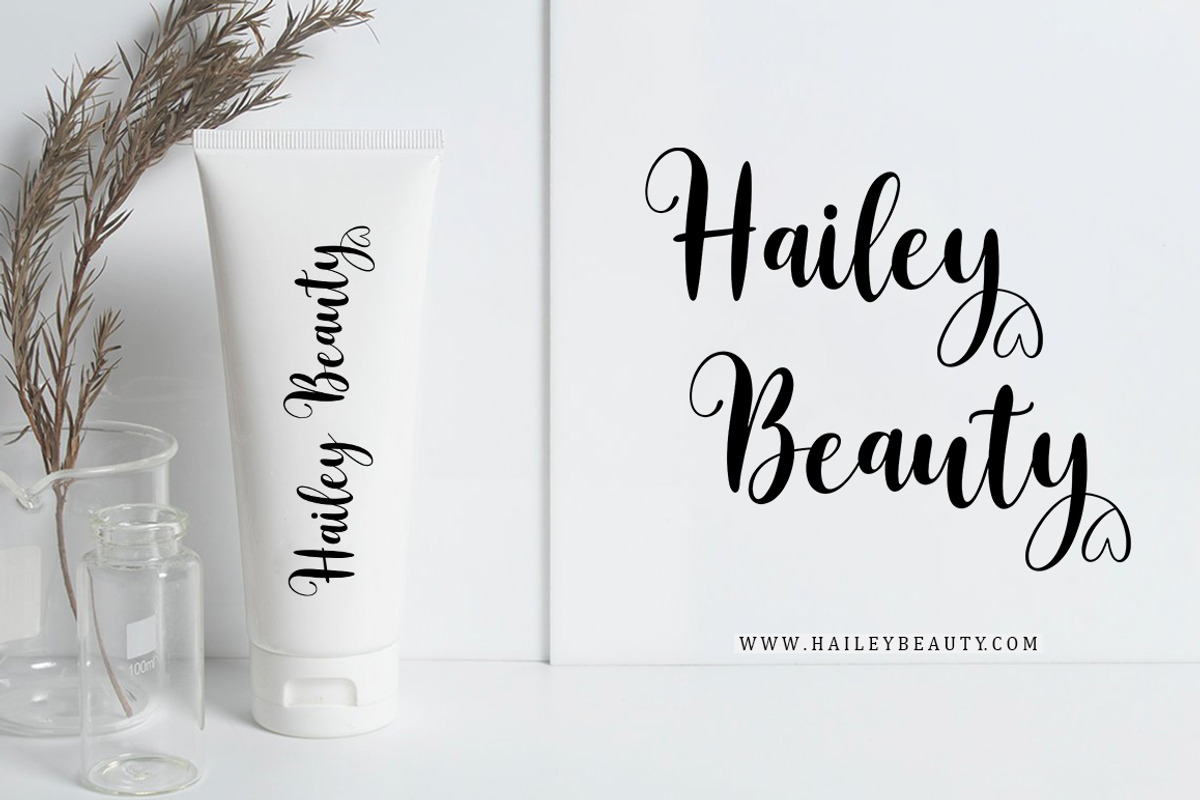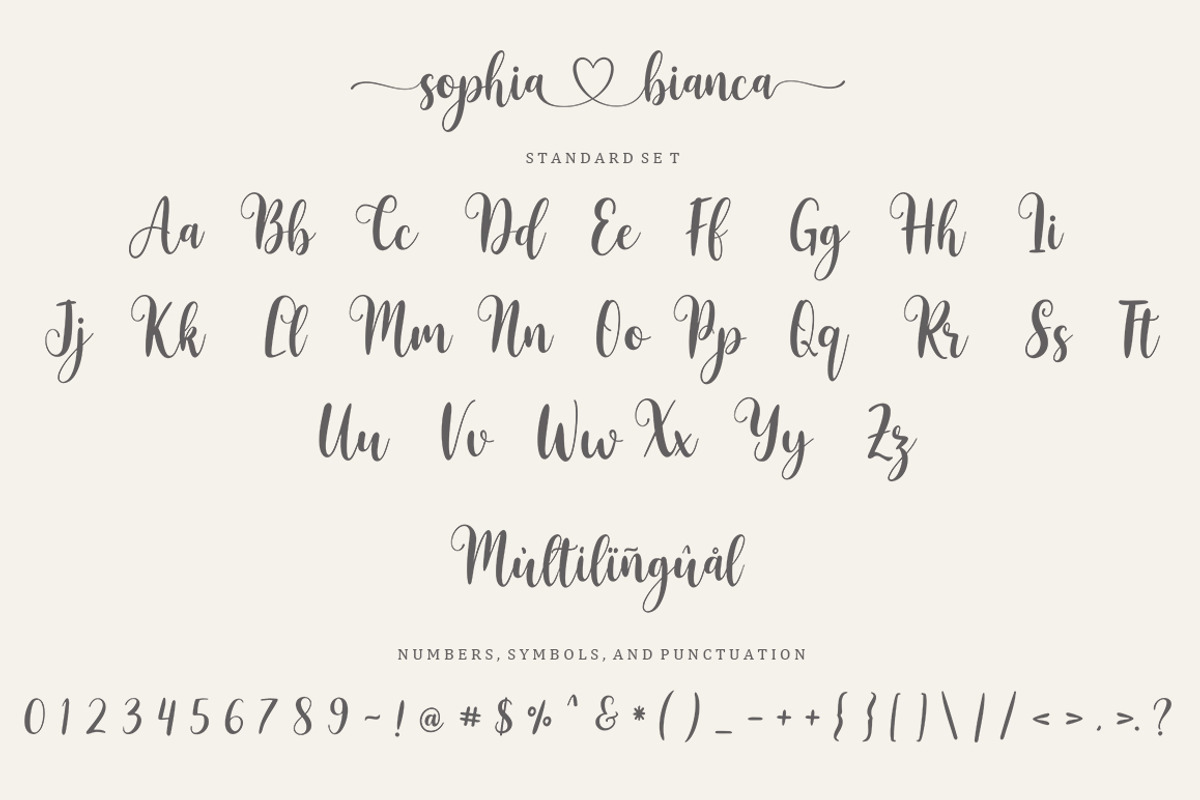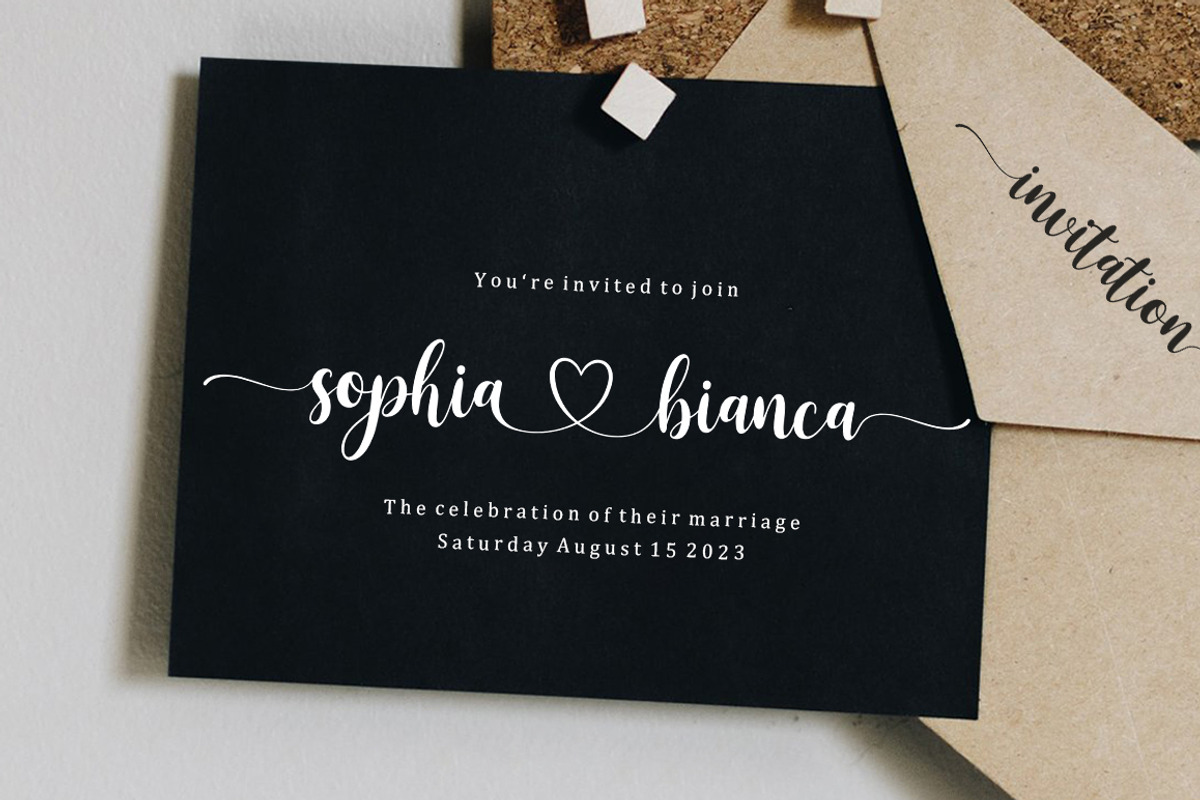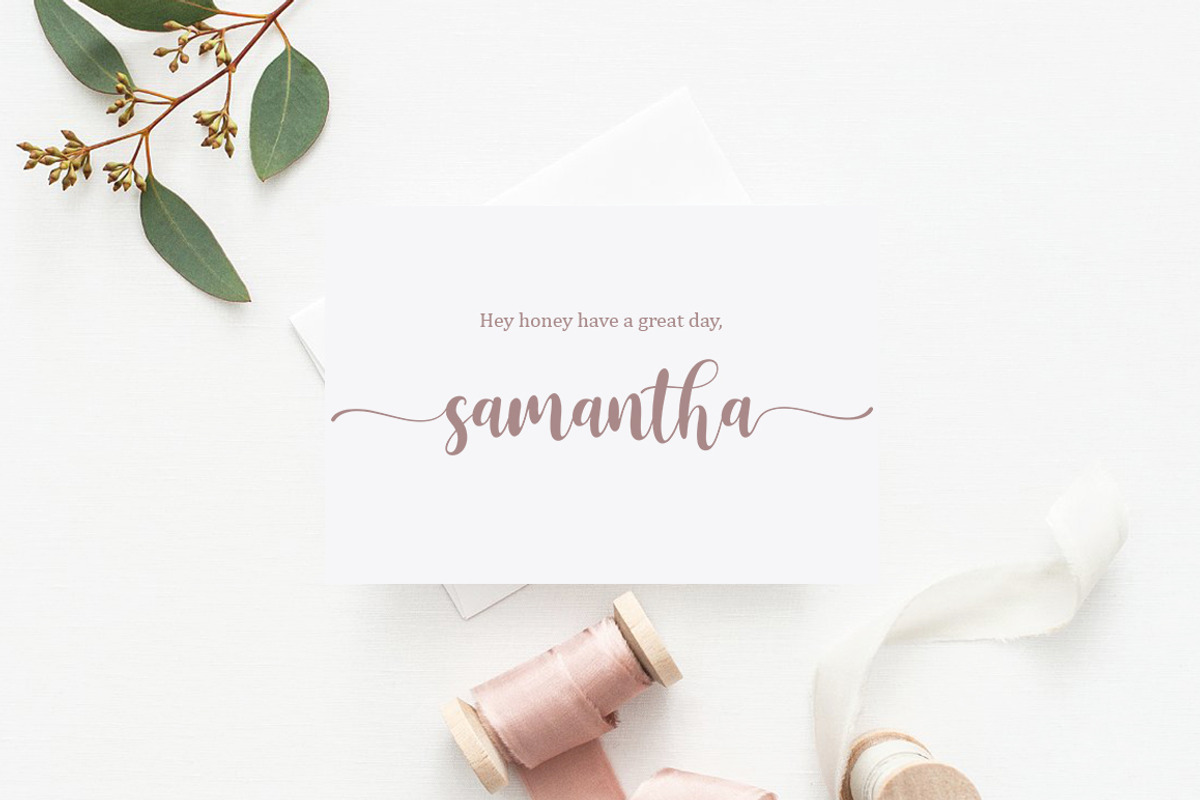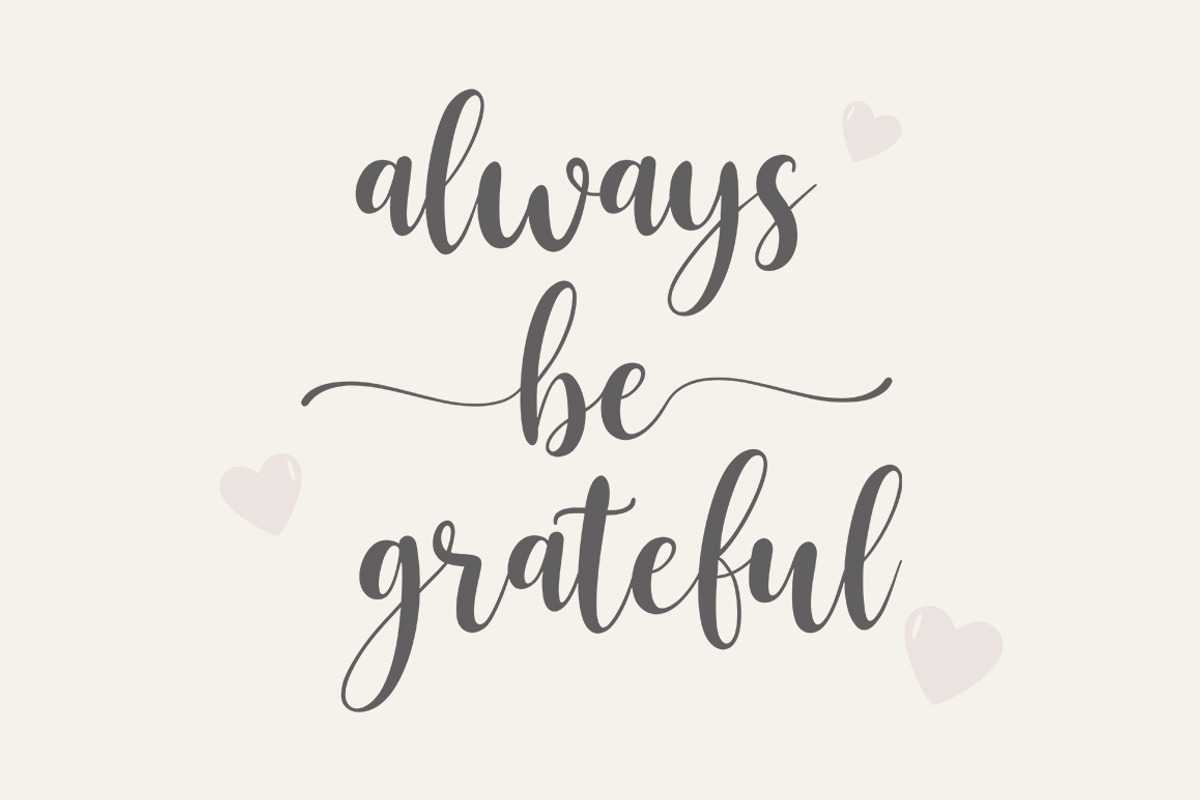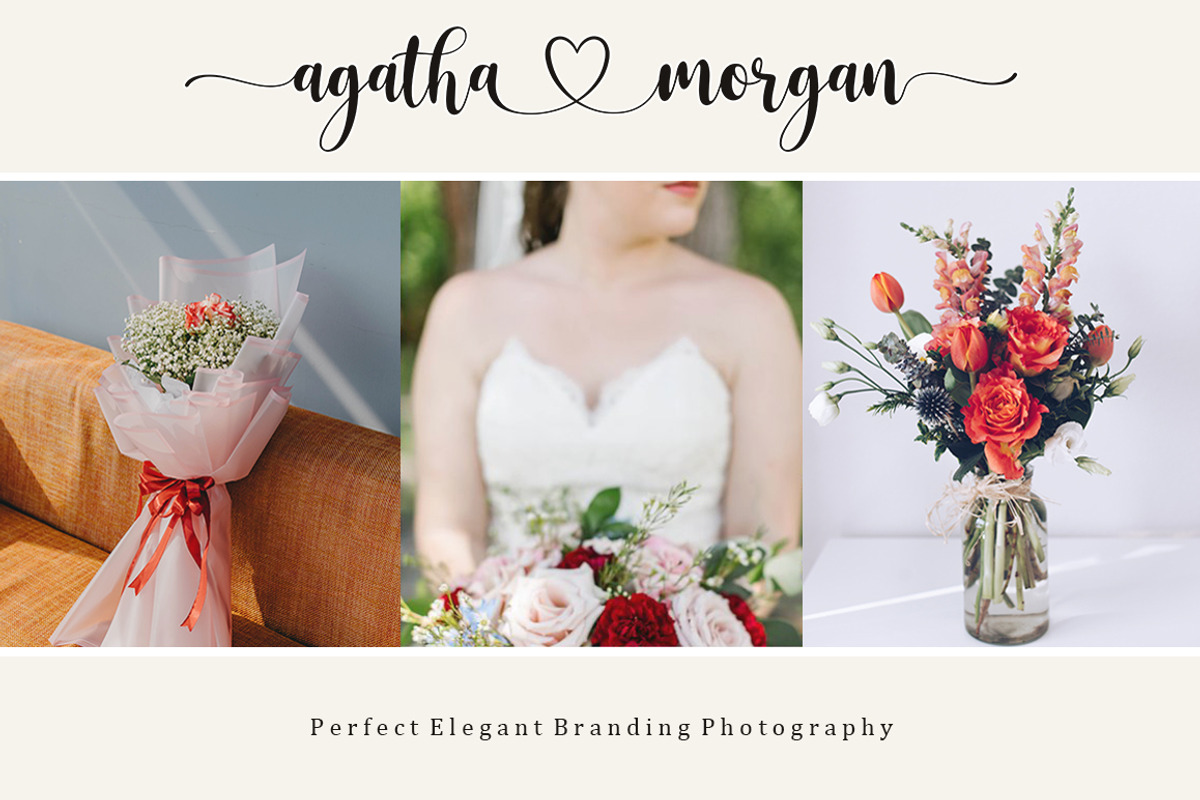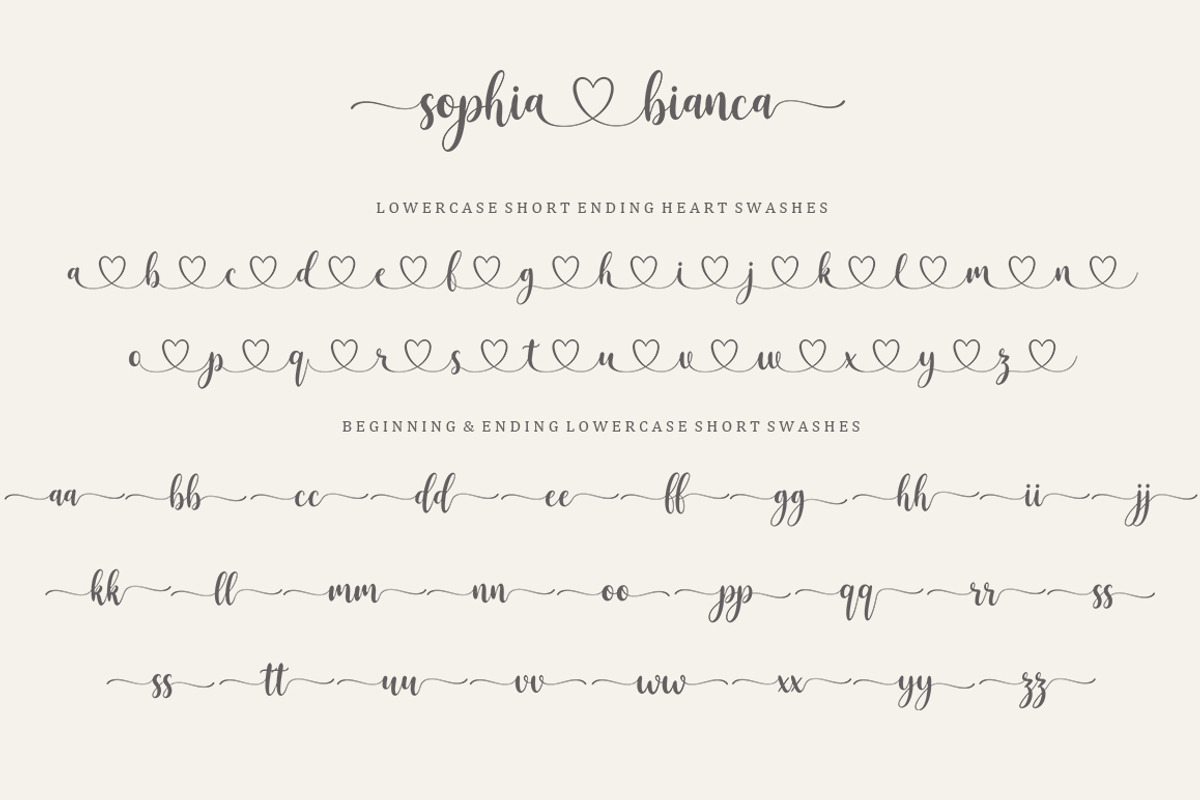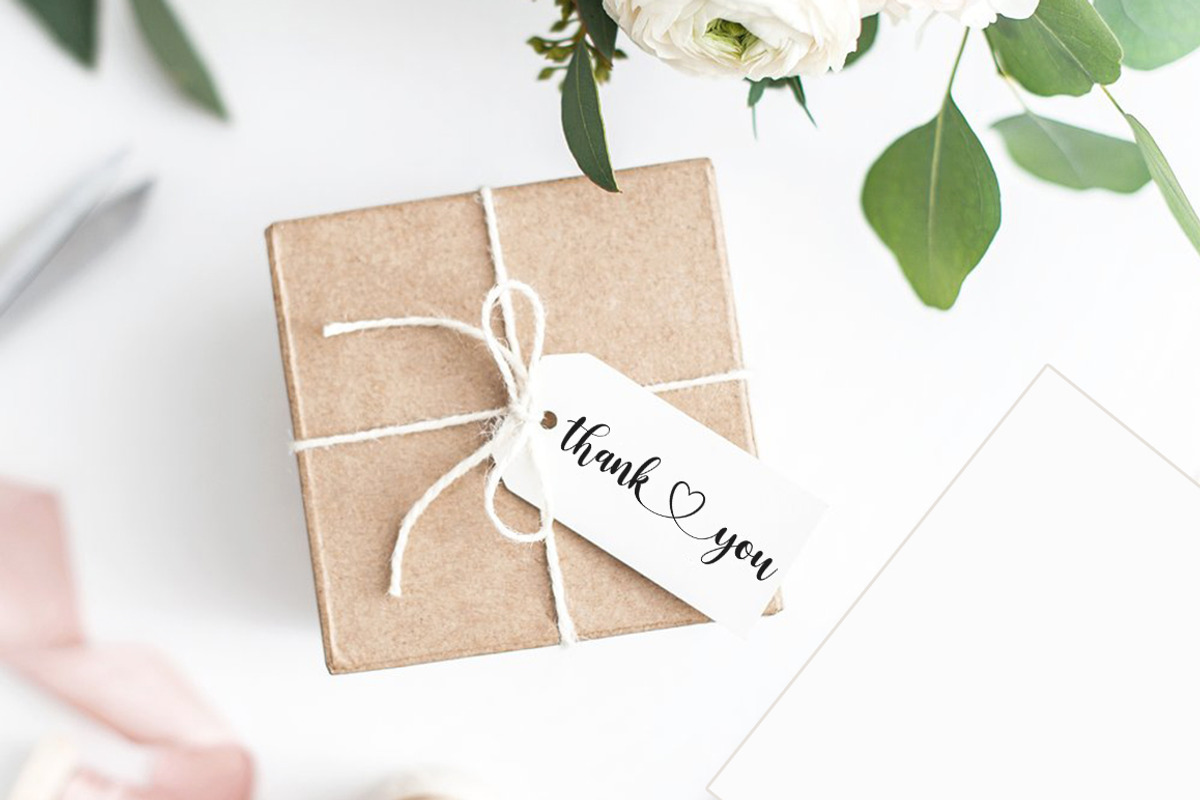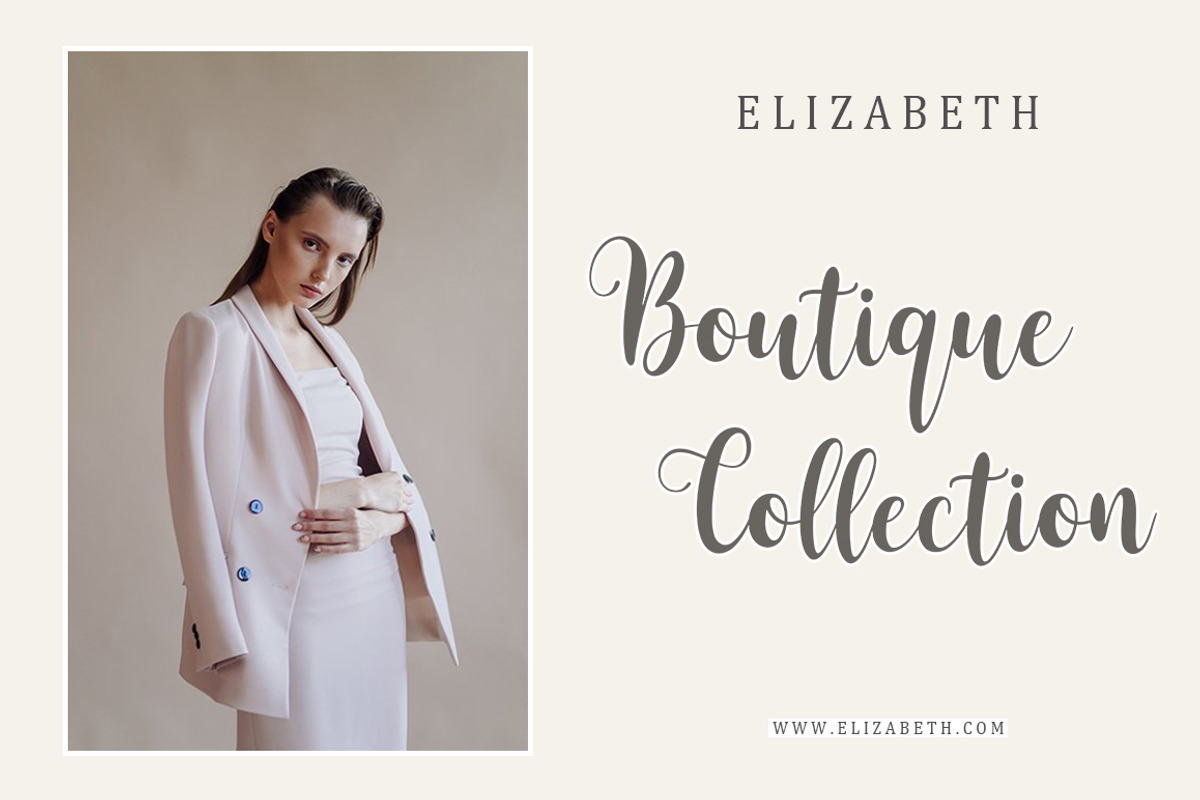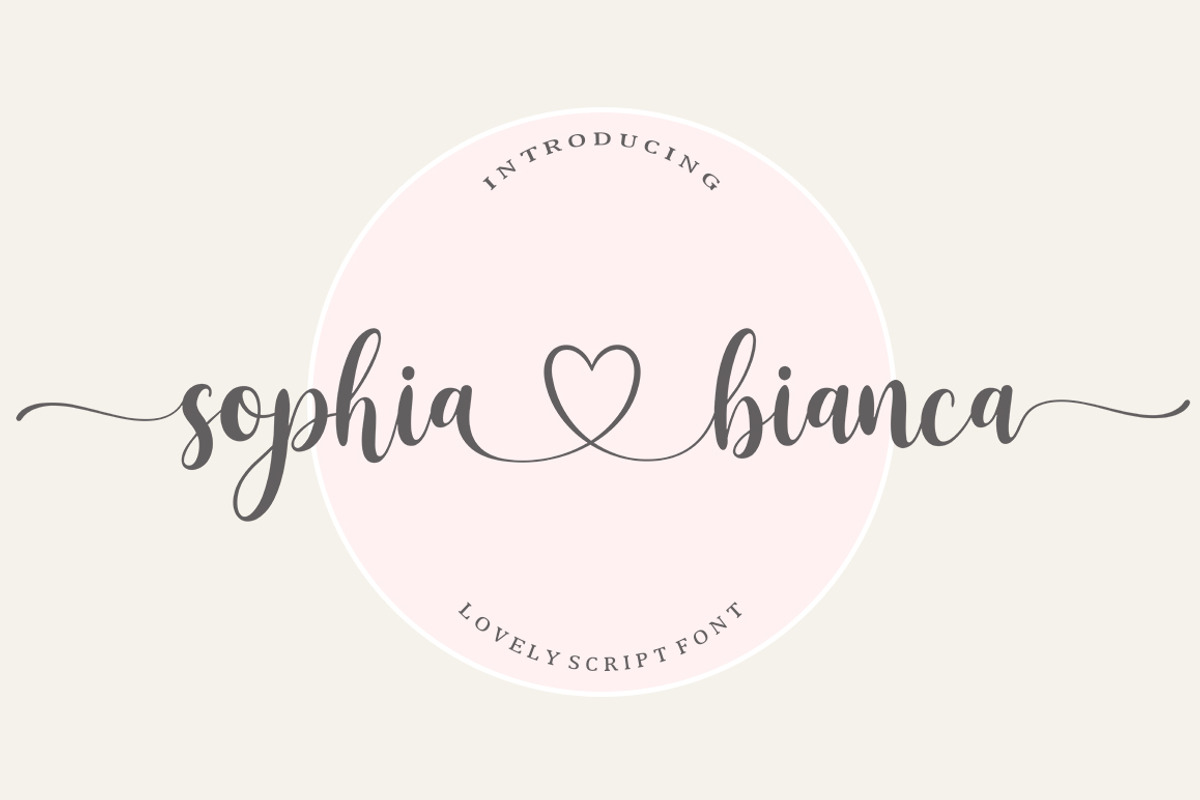
Sophia Bianca | Lovely Fonts
Sophia Bianca! A new fresh ans modern lovely font with decorative characters and a dancing baseline. So beautiful on invitation like handicraft, greeting cards, branding materials, business cards, quotes, posters, and more design concepts.
Unique ligatures
Stylistic sets
Basic Latin A-Z and a-z
International Symbols included